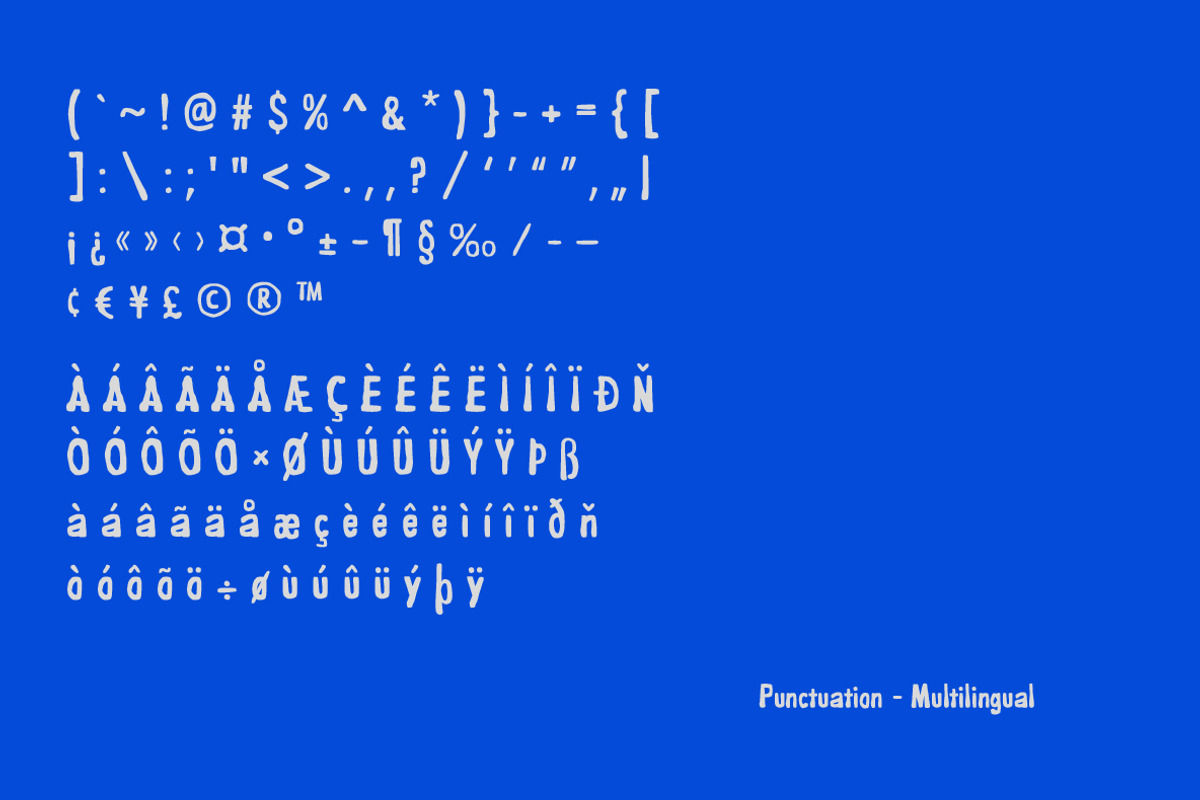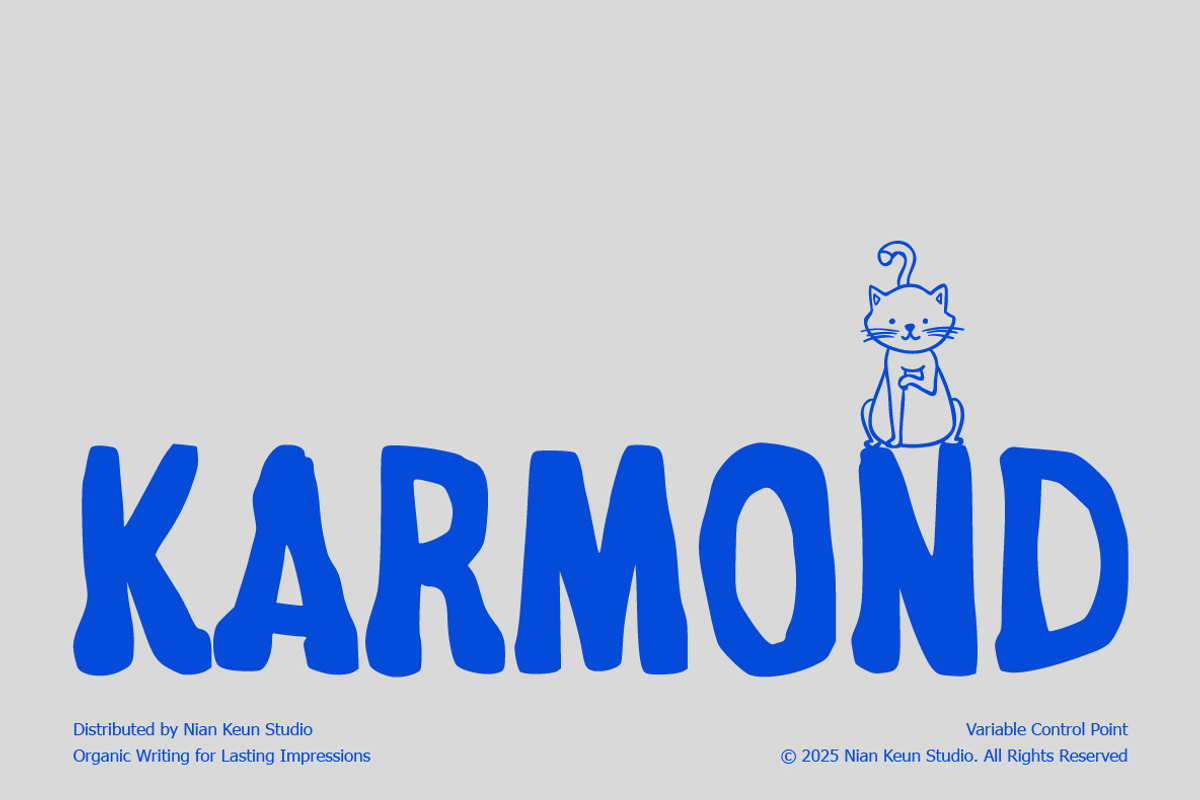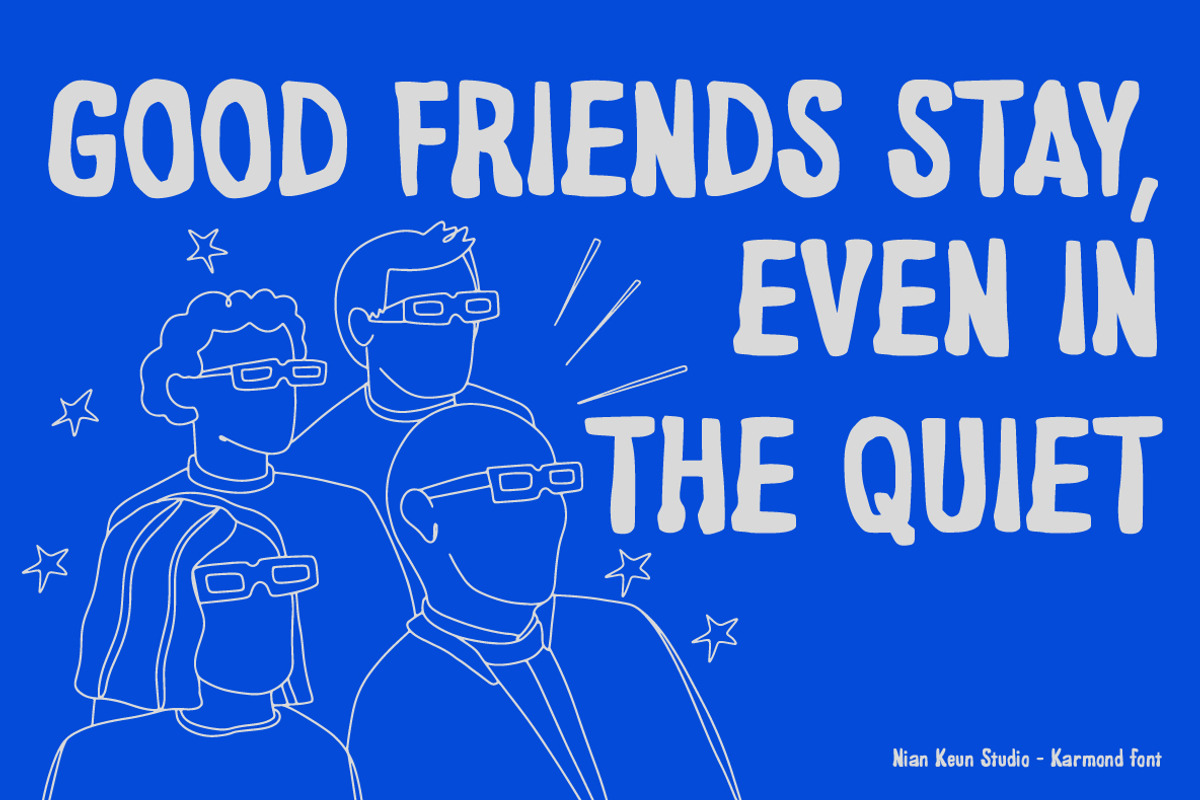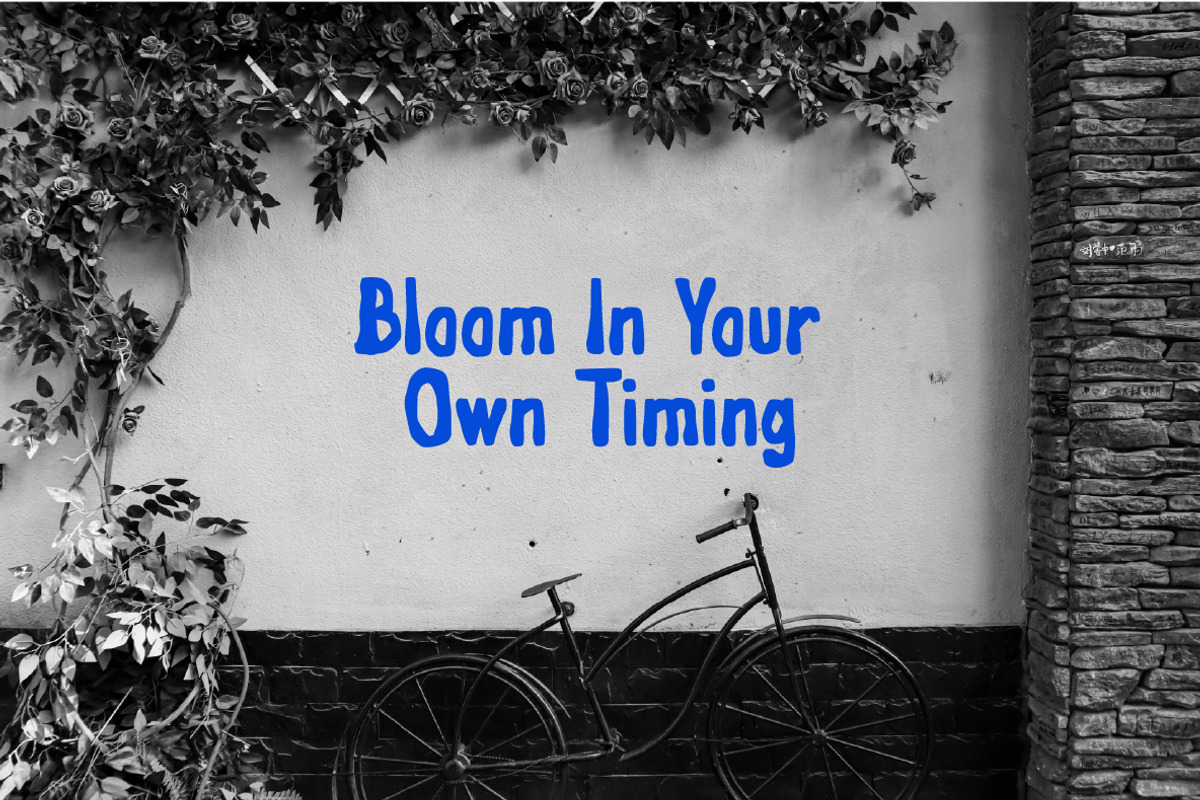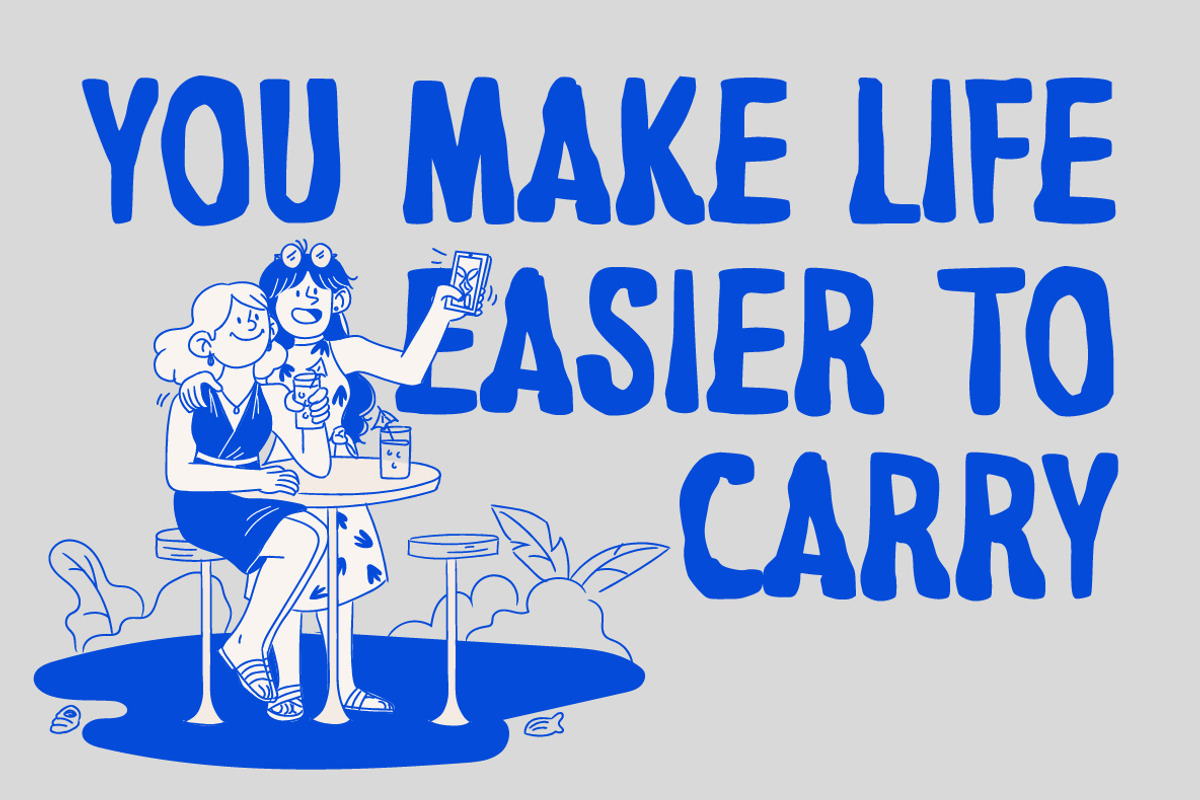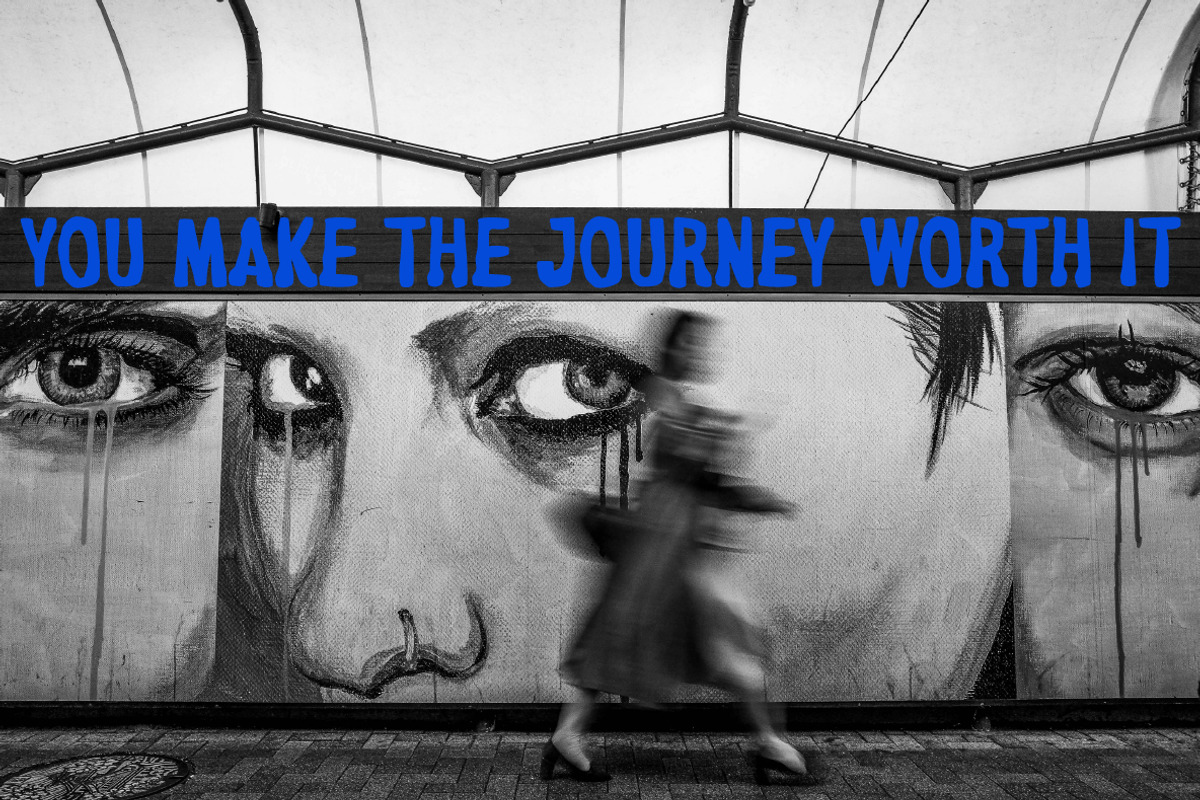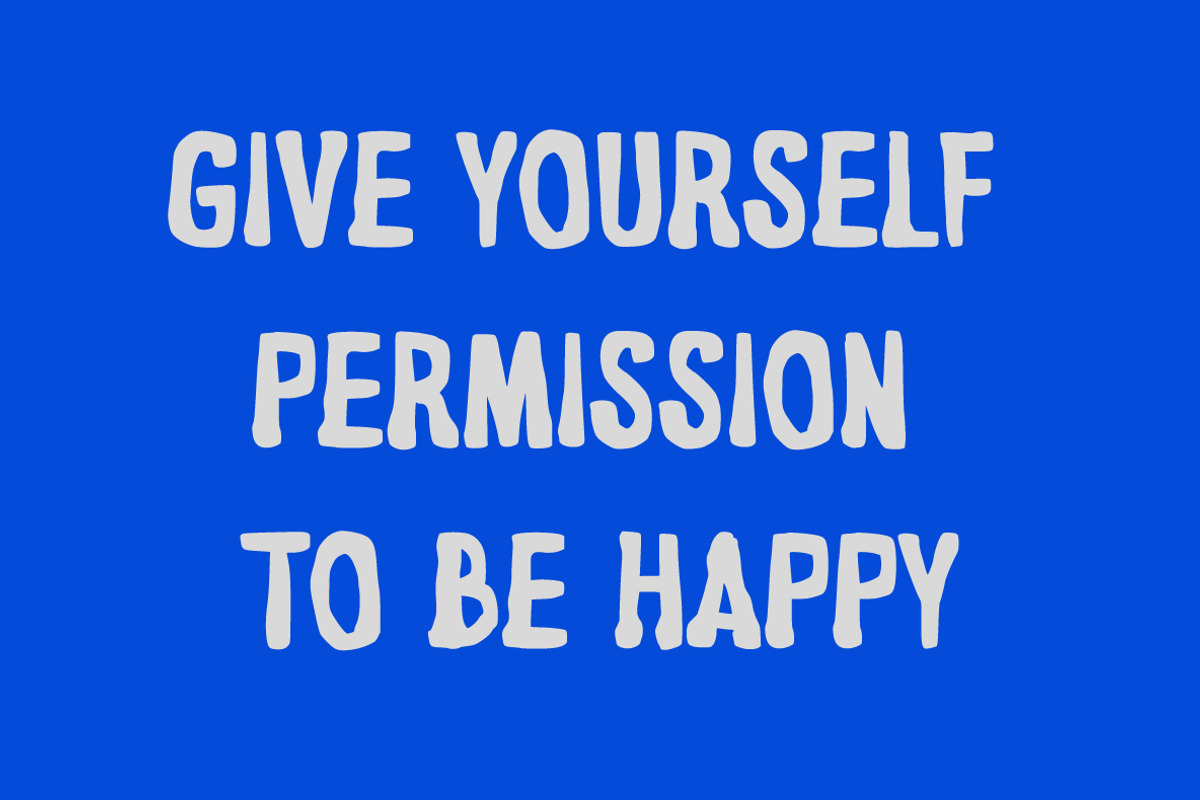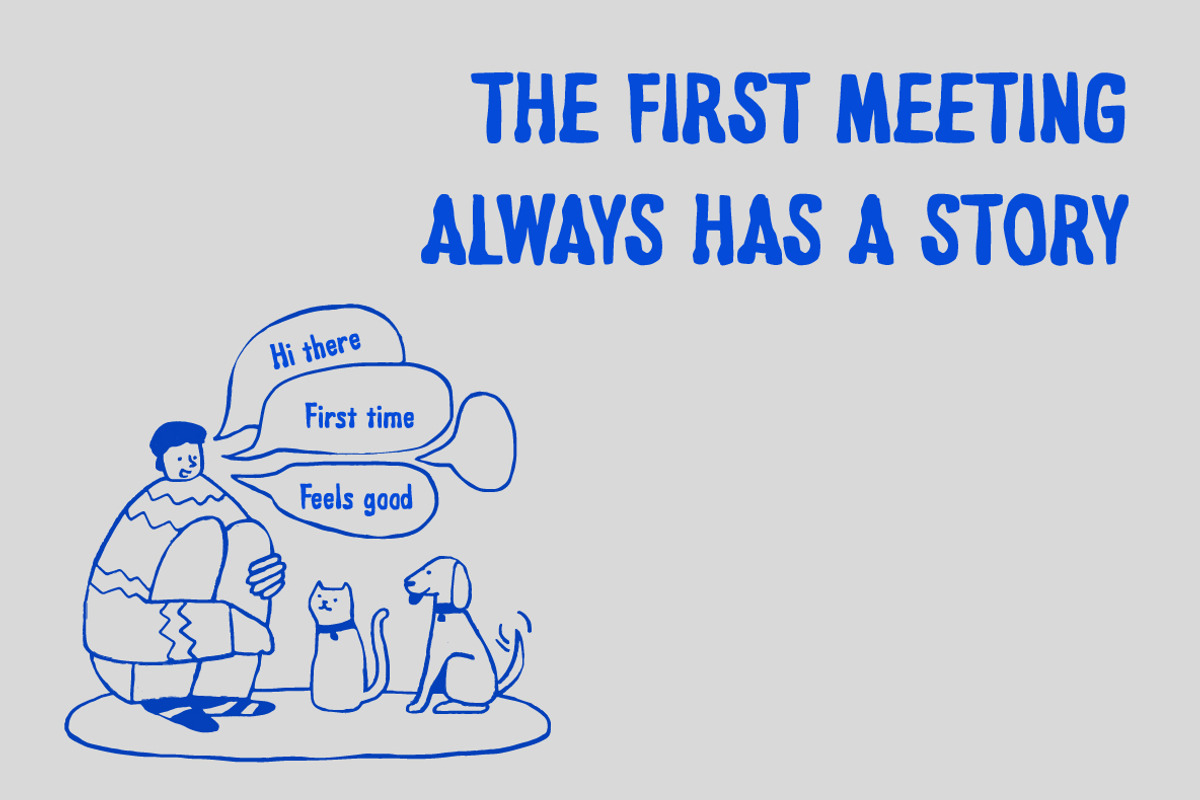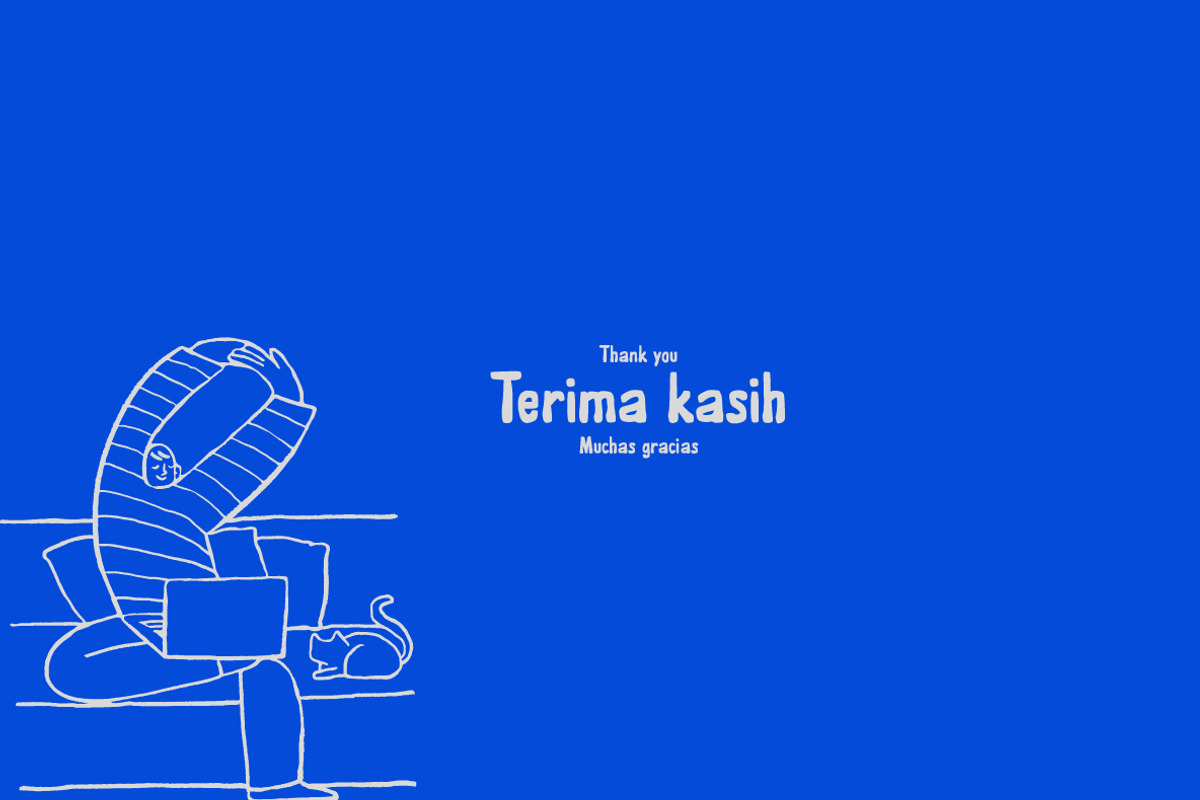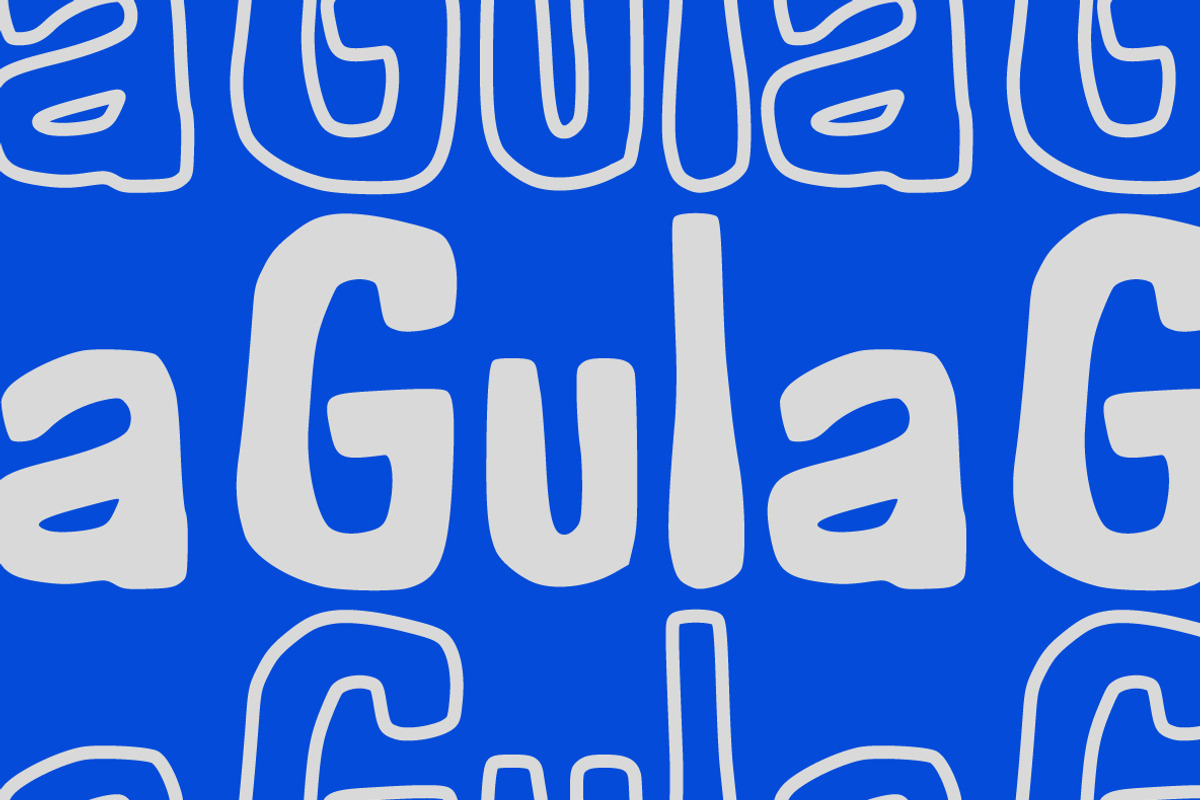
Karmond - Organic Writting
Karmond is a charming, hand-crafted display typeface inspired by the imperfect strokes of playful childhood writing. Every letter is deliberately uneven, wobbly, and wonderfully organic—capturing a warm, human touch that feels spontaneous, friendly, and full of personality.
Drawn with soft, rounded shapes and natural rhythm, Karmond brings an authentic handmade feel to any design. The typeface maintains a gentle flow without looking overly polished, making it perfect for projects that need sincerity, innocence, and emotional warmth. With its uniquely irregular contours, Karmond lights up your visuals with a sense of fun and approachable storytelling.
- Children’s books & story titles
- Educational materials
- Kids’ product packaging
- Branding with a playful personality
- Greeting cards & invitations
- Creative posters
- Logo design for friendly or family-oriented brands
- Social media graphics
- DIY, craft, and handmade-themed projects